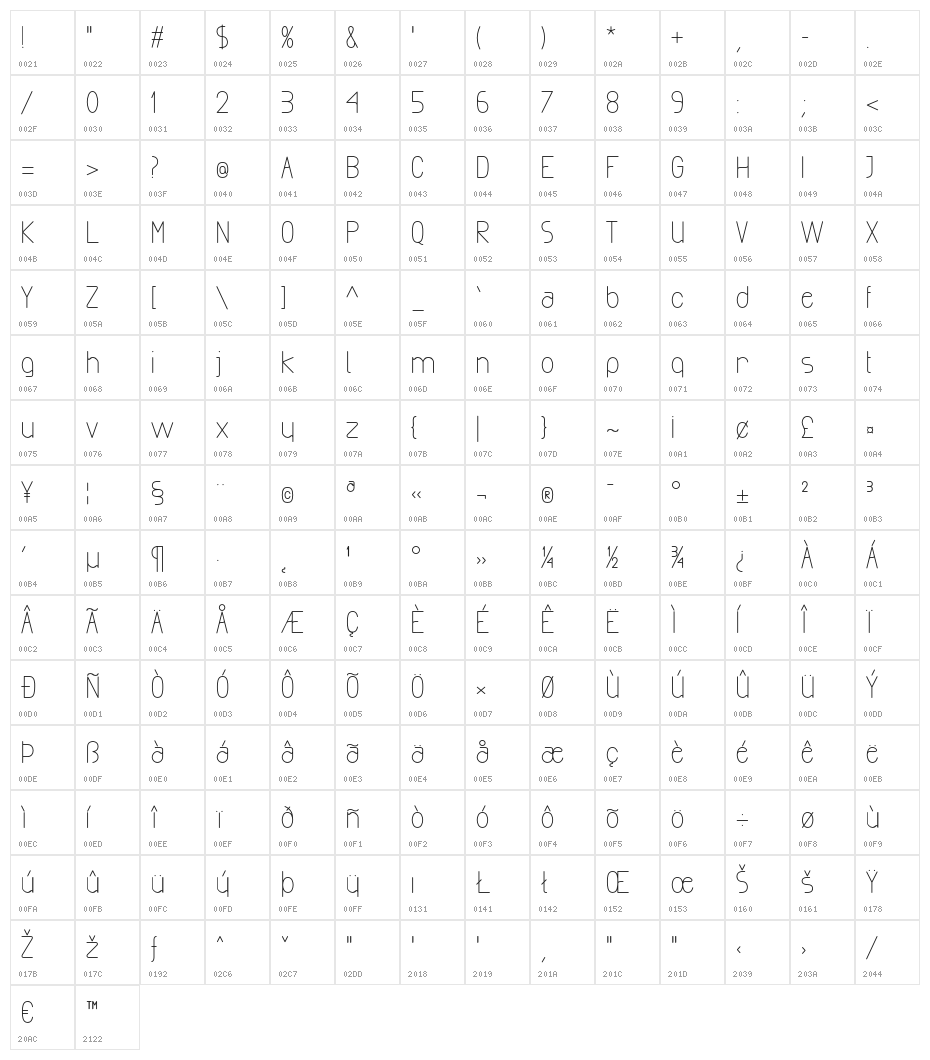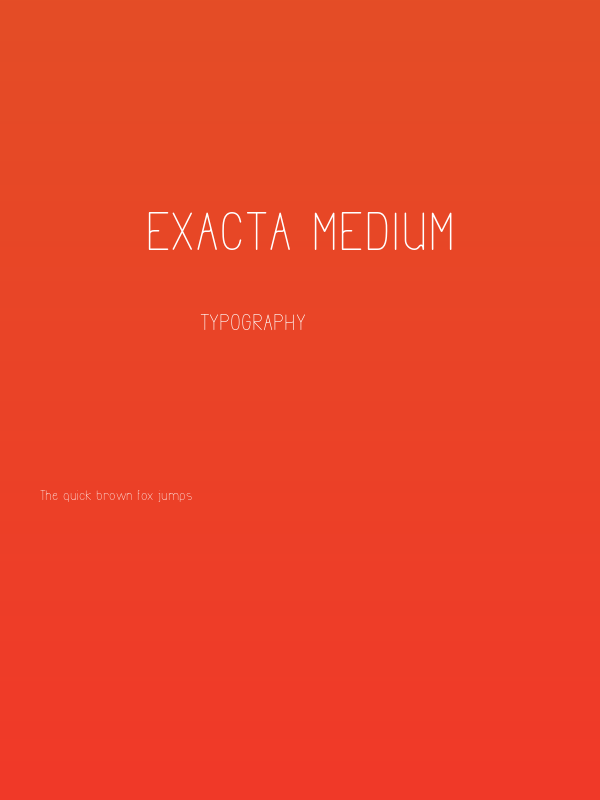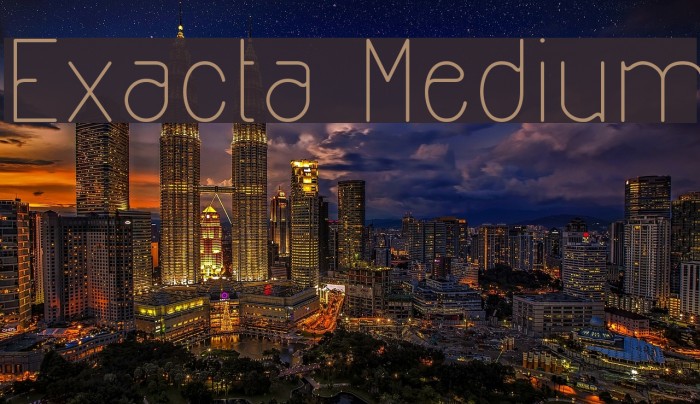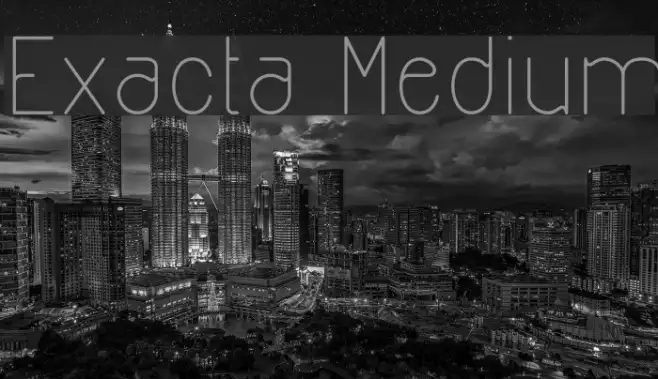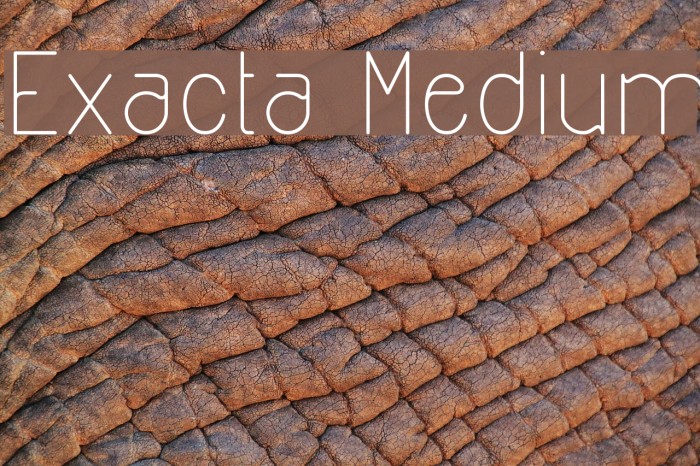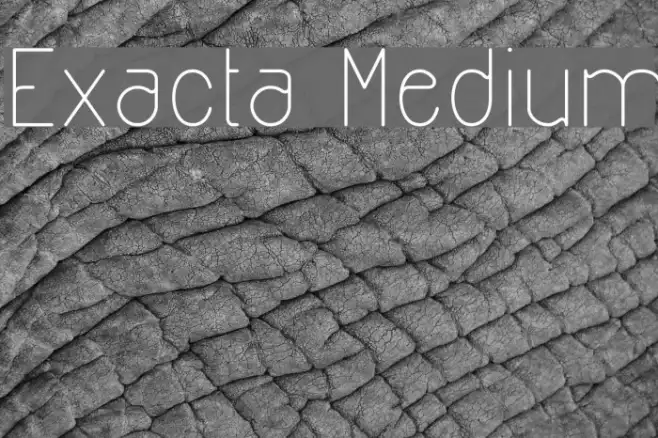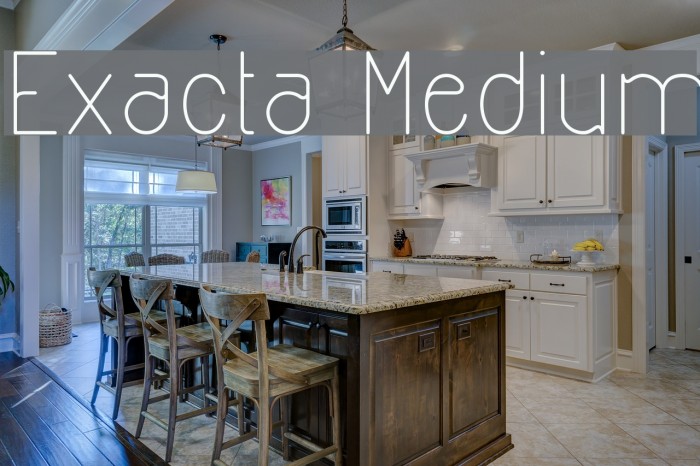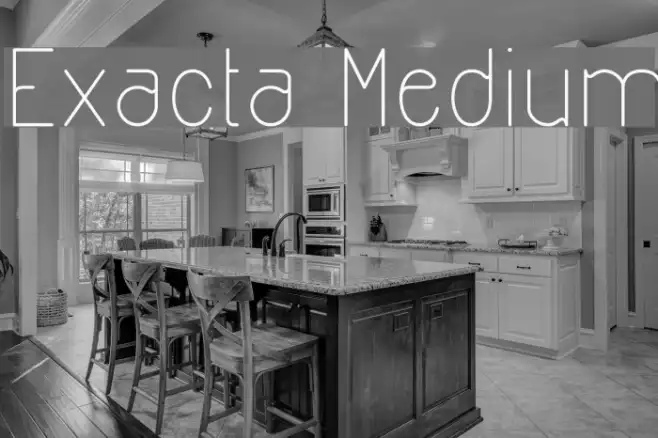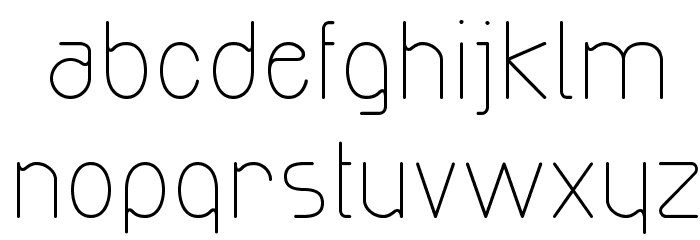
Exacta Medium Font
Exacta Medium Description
This font features a clean and modern sans-serif design with a geometric structure. The characters are evenly spaced, providing a balanced and harmonious appearance. The uppercase letters are tall and slightly condensed, while the lowercase letters maintain a consistent height, enhancing readability. The numerals are clear and distinct, making them suitable for various applications. The special characters are well-integrated, maintaining the overall sleek aesthetic. This font's simplicity and elegance make it versatile for both digital and print media.